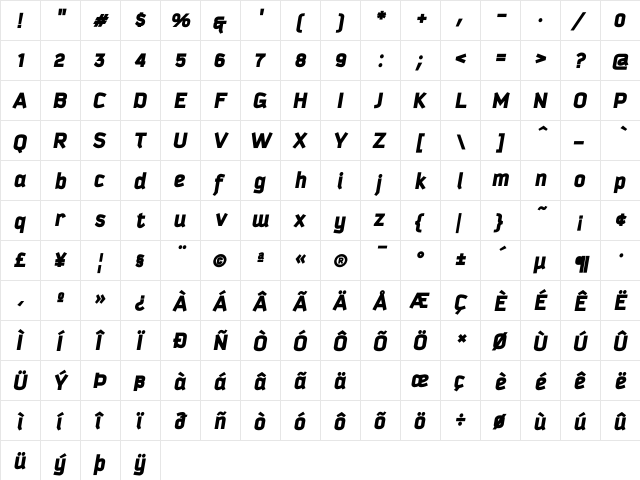
Kautiva Black Italic Font Preview
Kautiva Black Italic
Kautiva Black Italic Font Details
Design Context for Kautiva Black Typeface
Kautiva Black offers clean, dependable letterforms without strong stylistic allegiance, making it a practical choice for designers who need flexibility. Its italic angle brings a sense of urgency and motion to the letterforms.
Pro Tip: Use Kautiva Black for emphasis, pull quotes, and subheadings where its slanted energy can add rhythm to the layout.